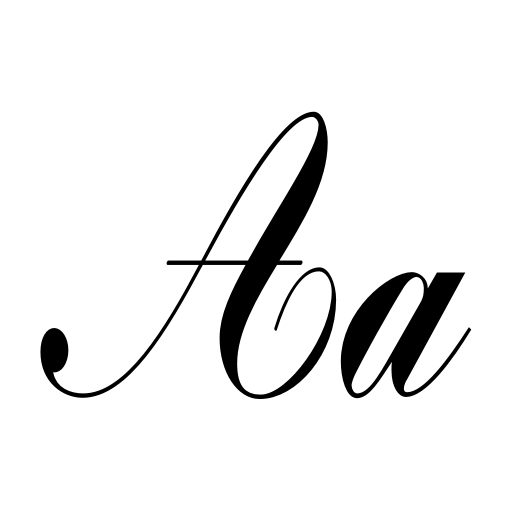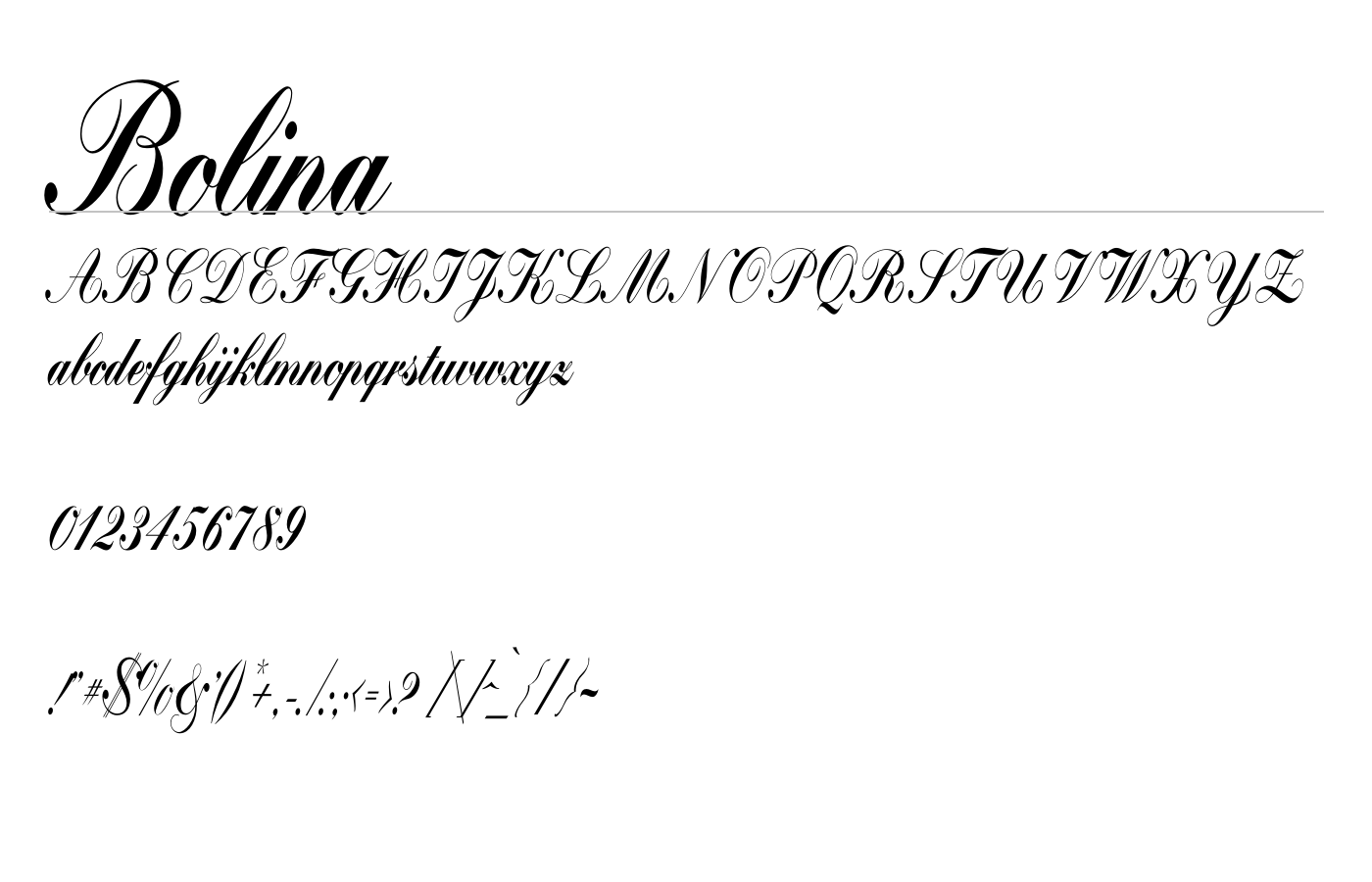
Bolina is an elegant script font characterized by its delicate, high-contrast strokes and refined calligraphic style. With its flowing, slender letterforms and slightly condensed width, it exudes a sophisticated, vintage charm perfect for luxury branding, wedding invitations, and stylish editorial projects. This font works best in display settings where its graceful details can shine, adding an air of classic beauty and refinement.
Bolina Font
About Bolina Font